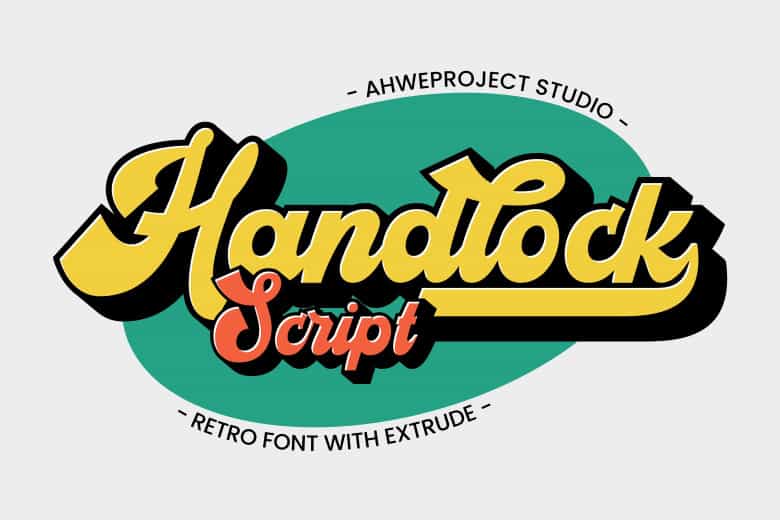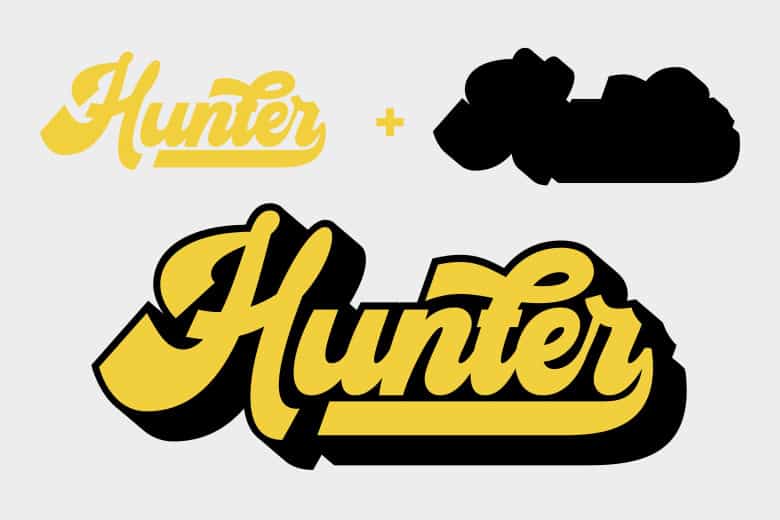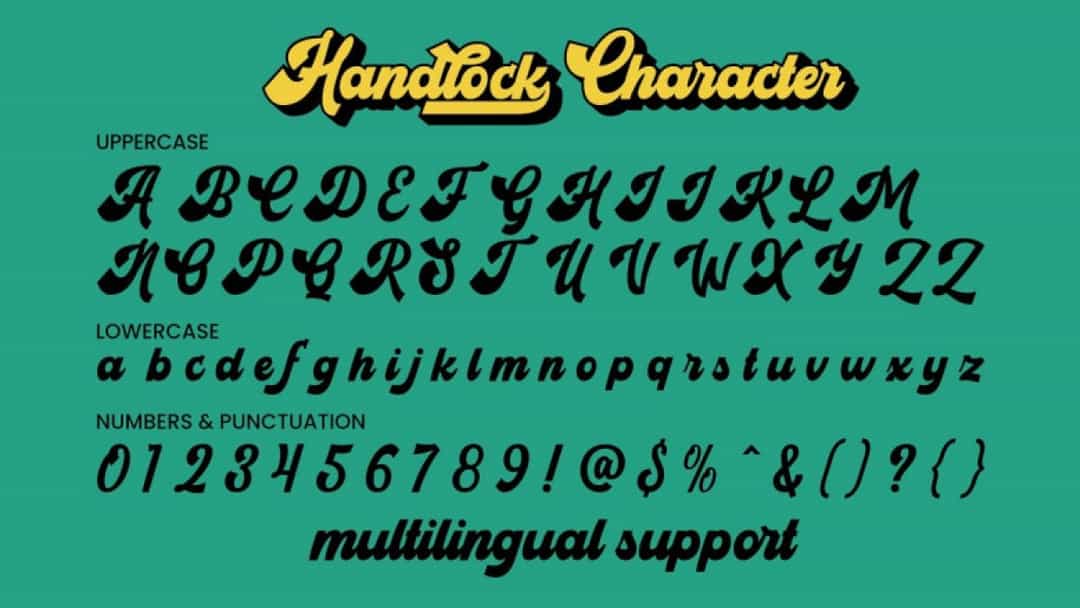
Handlock is a bold, retro style script font. Reading as resilient, resolute, and even tough-talking, this font imparts a lot of nostalgic feeling to the design that uses it. Add it to your vintage-inspired posters, stickers, apparel or social media posts and your audience will love what you’ve brought them.